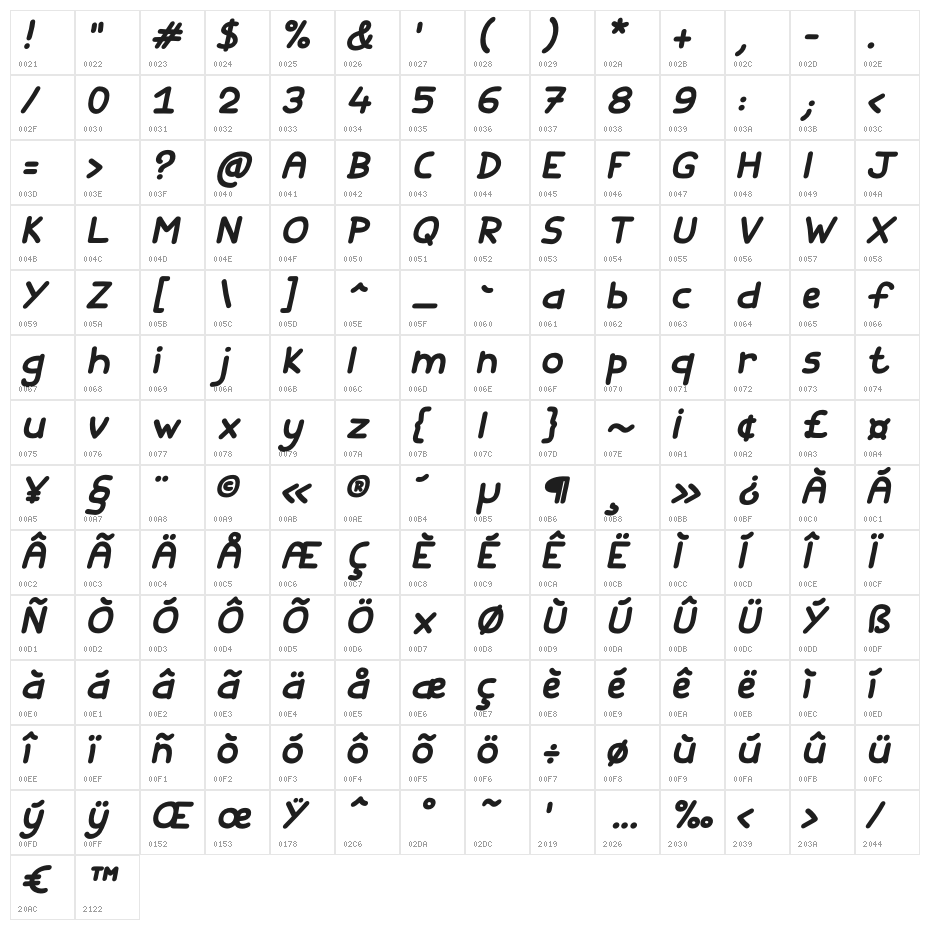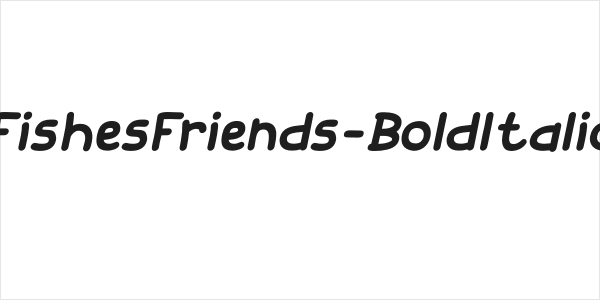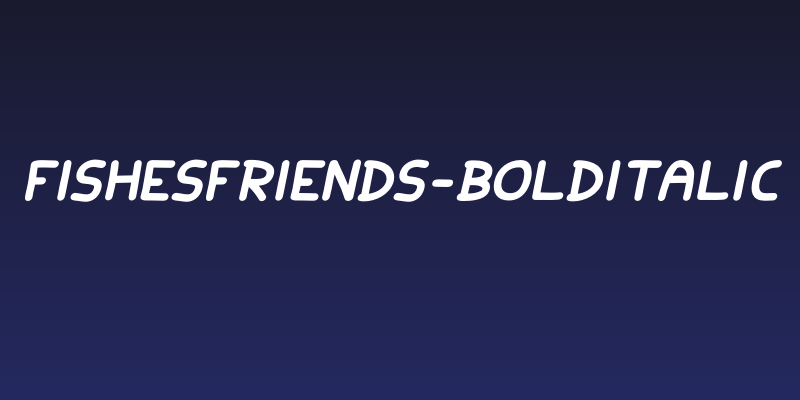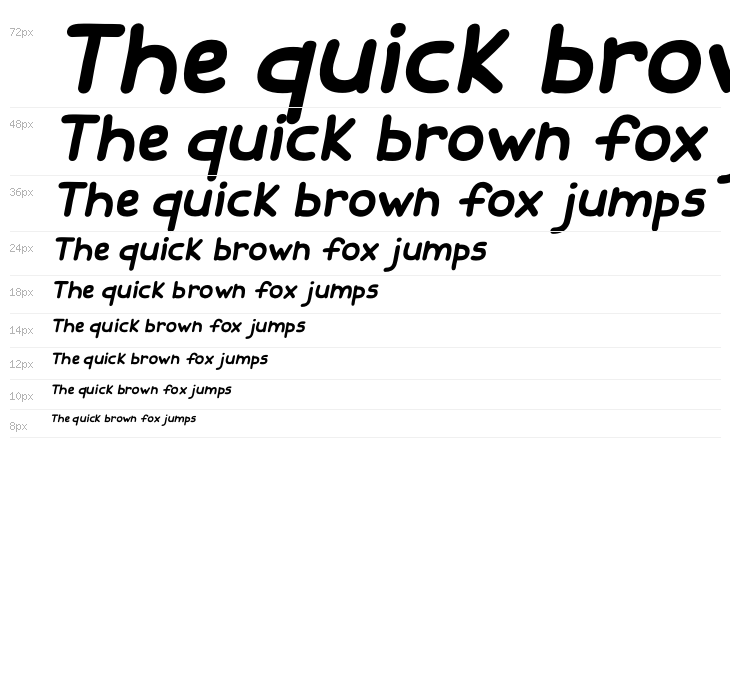
FishesFriends-BoldItalic Font
FishesFriends-BoldItalic Description
This playful and bold font features rounded edges and a smooth, flowing style that gives it a friendly and approachable appearance. The characters are slightly italicized, adding a sense of motion and dynamism. The uppercase and lowercase letters maintain a consistent style, with a uniform stroke width that enhances readability. The numerals and special characters are designed to match the overall aesthetic, ensuring a cohesive look across all text elements. This font's boldness makes it stand out, while its rounded forms convey warmth and creativity.
| Proposed Projects | Ideal for children's books, playful branding, casual invitations, and creative posters. |